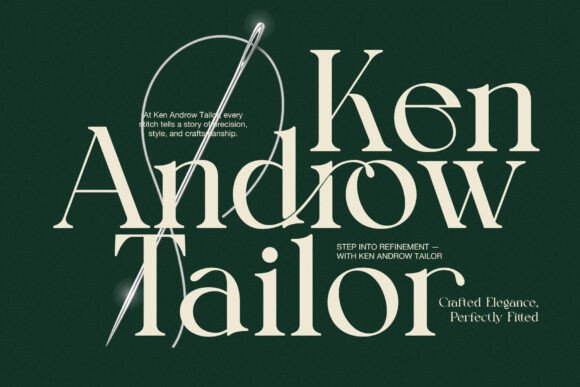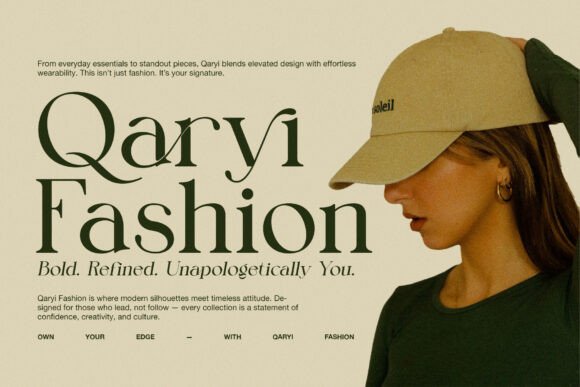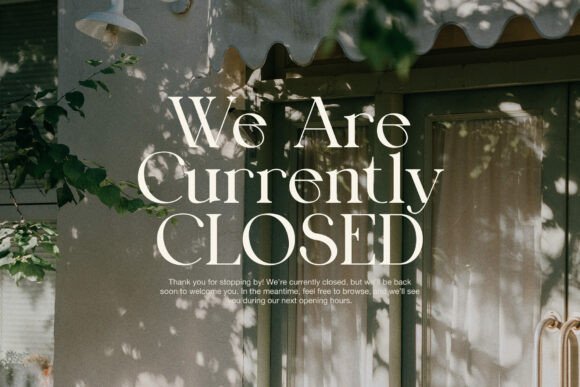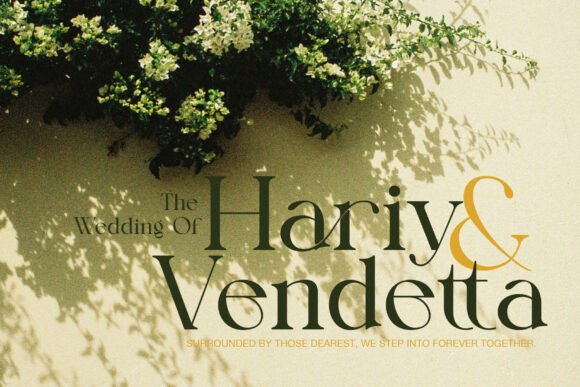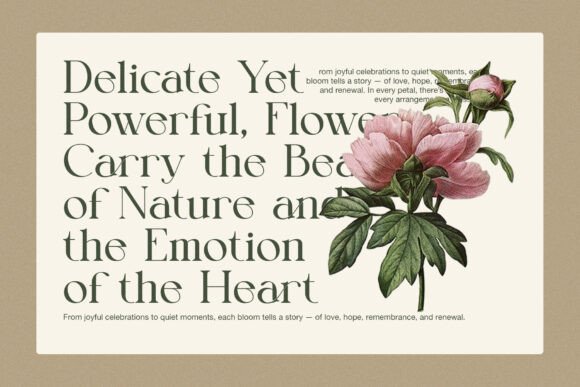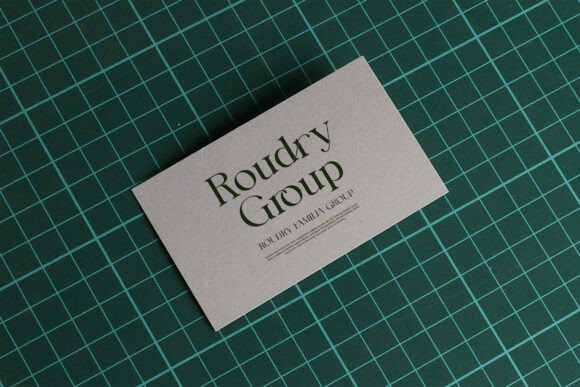
Introducing Grigane Elegant Serif Font: Elevate Your Designs with Sophistication
In the world of typography, a font can make all the difference in the success of a design project. Whether you’re a seasoned designer or a crafty entrepreneur, finding the right typeface can be a daunting task. That’s why we’re excited to introduce Grigane Elegant Serif Font, a refined and modern typeface designed to infuse sophistication and uniqueness into your designs.
The Perfect Blend of Elegance and Modernity
Grigane is more than just a font – it’s a statement piece. With its meticulously crafted serifs and timeless letterforms, Grigane brings a fresh, luxurious feel to any project. Its sleek elegance makes it the perfect choice for creating impactful logos, branding materials, and polished websites that demand attention. Whether you’re designing for print or digital formats, Grigane effortlessly enhances magazines, advertisements, product packaging, and layout designs.
One of the standout features of Grigane is its versatility. This elegant serif font excels in a wide range of applications, from food branding to high-end products, and even corporate identities. Its distinctive, yet highly readable style ensures your message stands out, whether you’re creating marketing collateral for a boutique, a luxury brand, or a fashion label. Grigane’s unique character adds an air of sophistication, elevating your designs to a new level of professionalism.
Why Choose Grigane?
- Sophisticated and Modern Design: Grigane’s refined serifs and classic letterforms bring a touch of elegance to any design.
- Highly Versatile: Perfect for a wide range of applications, from logos and branding to magazines and digital media.
- Excellent Readability: Grigane’s clear and concise style ensures your message is communicated effectively.
- Luxurious Feel: Add a touch of sophistication to your designs with Grigane’s unique and refined aesthetic.
Design Inspiration with Grigane
Grigane is the perfect font for designers and crafters looking to create stunning visual content. Here are a few design inspiration ideas to get you started:
- Luxury Brand Identity: Use Grigane to create a sophisticated brand identity for a high-end fashion label or luxury goods company.
- Food and Beverage Branding: Add a touch of elegance to your food and beverage branding with Grigane’s refined and modern aesthetic.
- Magazine and Editorial Design: Grigane is perfect for magazine and editorial design, bringing a touch of sophistication to any publication.
In conclusion, Grigane Elegant Serif Font is the perfect choice for designers and crafters looking to add a touch of sophistication and elegance to their designs. With its refined serifs, timeless letterforms, and highly readable style, Grigane is sure to elevate your designs to new heights. So go ahead, get creative, and see the impact that Grigane can have on your next design project.